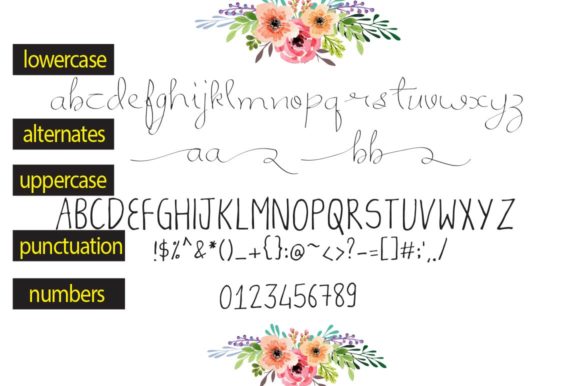
Introduction to Nemana Font
As a designer, there’s that one moment when a project just needs a little something extra to make it pop. You’ve poured your heart and soul into the design, but it’s still missing that special je ne sais quoi. That’s where the Nemana Font comes in – a fun and playful decorative font that adds a bold touch to any creative project.
With its high-quality design and transparent background, the Nemana Font is the perfect addition to any project. Whether you’re working on a graphic design, a digital art piece, or even a social media post, this font is sure to turn heads. And the best part? It’s available for free download, making it an invaluable design resource for designers of all levels.
As a valuable tool in any designer’s arsenal, the Nemana Font is a must-have for anyone looking to add a little extra flair to their work. In this article, we’ll dive deeper into the world of this amazing font and explore what makes it so special.
Key Features of Nemana Font
- High-quality design for creative projects, including logos, branding, and typography.
- Transparent background, making it easy to use as a design resource in various applications.
- Designed to be highly versatile, with a size range of 8-72 points and a resolution of 300 DPI.
- Unique characteristics include a modern, clean aesthetic and a wide range of stylistic options.
Honest Review: Nemana Font
As a designer, I’m always on the lookout for high-quality design resources to elevate my creative projects. Recently, I stumbled upon the Nemana Font, and I’m excited to share my honest review with you.
- ✨ Unique and elegant design aesthetic: The Nemana Font has a distinct, modern feel that sets it apart from more common fonts.
- ✨ Excellent legibility: Whether used for body text or headings, the Nemana Font is easy to read and understand.
- ⚠️ Limited font weights: While the Nemana Font has a nice selection of font weights, I found it lacking in terms of options for bold or italic styles.
- ⚠️ Transparency issues: In some cases, the transparent background of the font can be a bit tricky to work with, especially when using complex designs.
Overall, I’m impressed with the Nemana Font’s potential, but I think it could benefit from a bit more refinement. As a free design resource, it’s still a valuable addition to any designer’s toolkit. I’d definitely recommend it for simple, straightforward projects – just be aware of its limitations.
Nemana Font is a versatile design resource that can be used in a variety of creative projects, including logos, branding materials, and marketing materials. It’s also a great option for designers who want a high-quality font that’s easy to customize.
Does the Nemana Font have a transparent background?
Yes, the Nemana Font has a transparent background, making it easy to use on any design background. This feature is particularly useful for designers who want to create complex and layered designs without the hassle of dealing with background images.